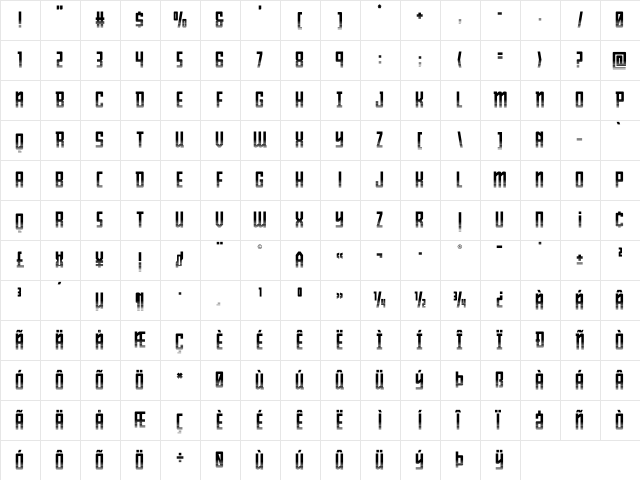
Young Patriot Halftone Regular
Design Context for Young Patriot Halftone Typeface
Young Patriot Halftone is a composed and adaptable typeface that performs quietly and consistently across a wide range of design contexts.